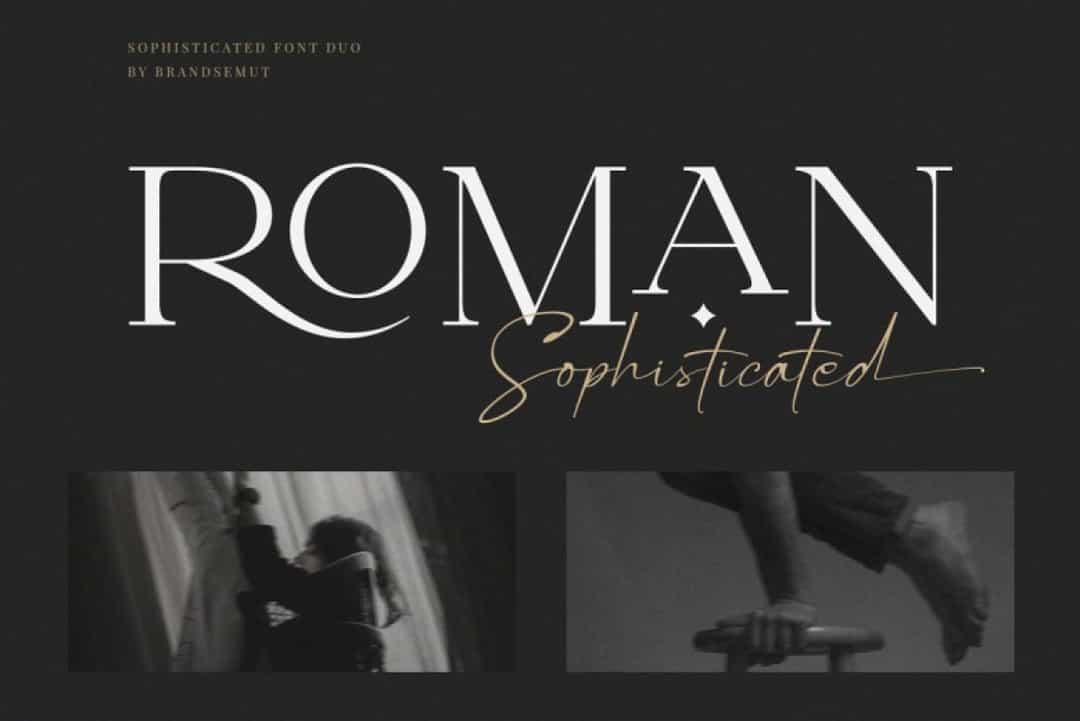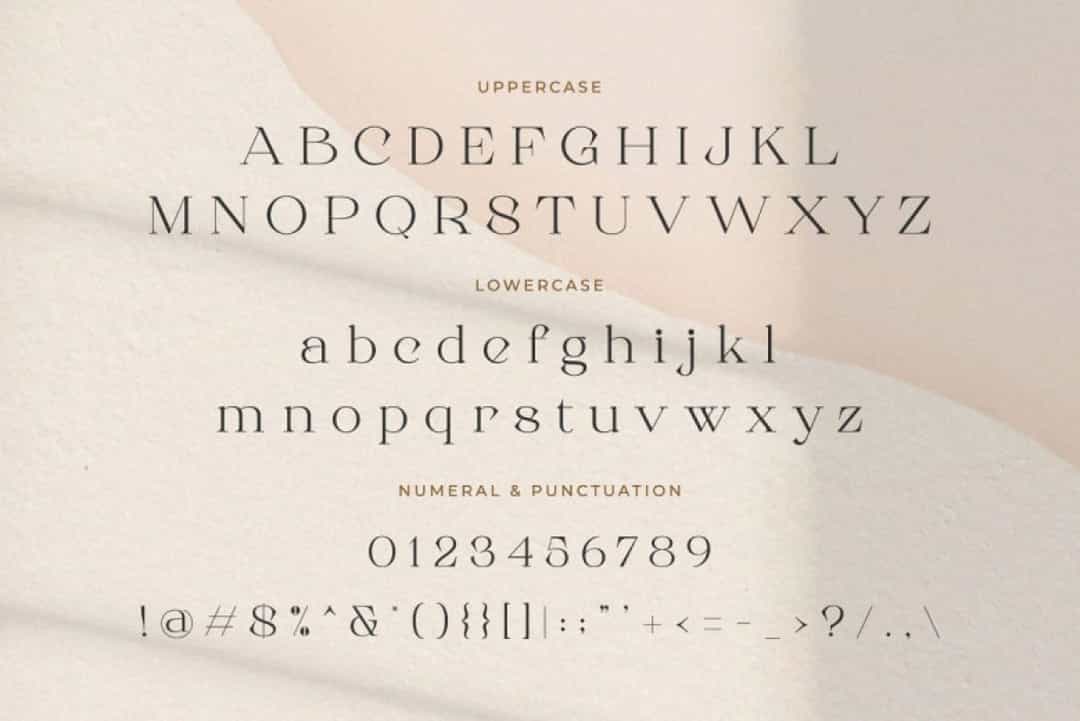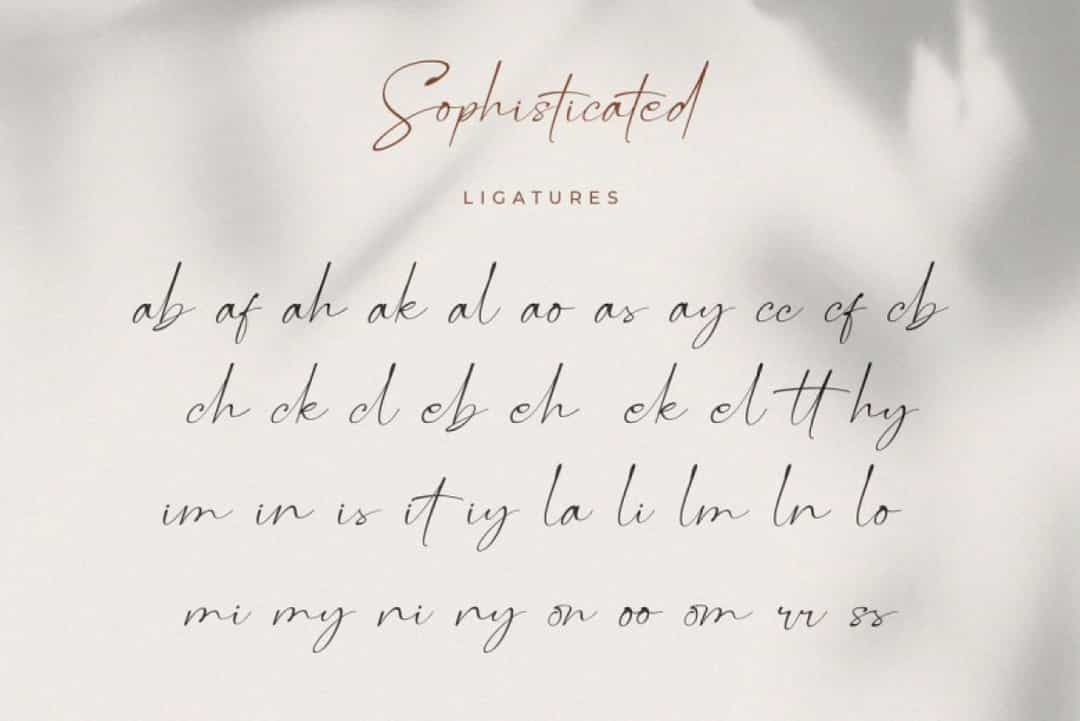
Discover Roman Sophisticated Font, part of the Handwritten Serif collection—a versatile and unique font perfect for adding a personal touch to your projects. Download it for free and enjoy crafting designs with style, from invitations to social media posts. This font is available exclusively for personal use, giving you the freedom to create without limits. Unlock your creativity with Roman Sophisticated Font today!
Welcome the Roman Sophisticated font duo. Featuring luxurious and sophisticated script and serif typefaces – ready for use in your next project – Roman Sophisticated makes an excellent alternative to use in display headings, logos, branding products packaging for products such as magazines or invitations, among other uses.